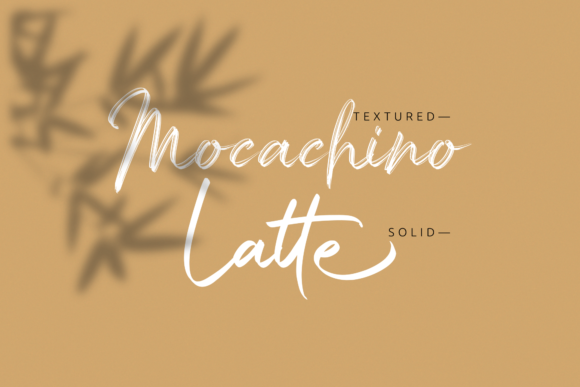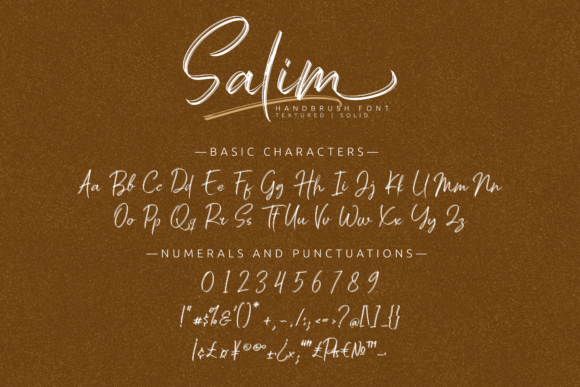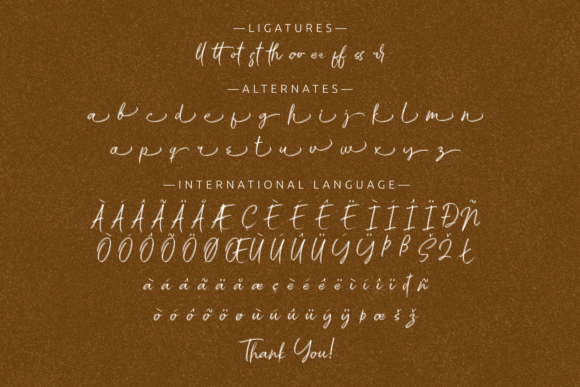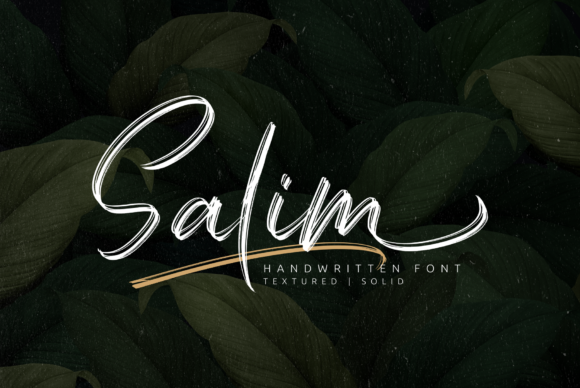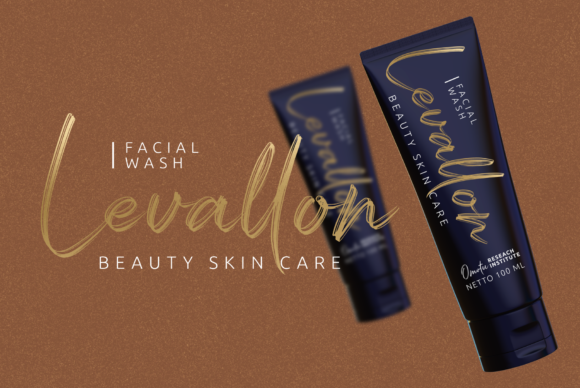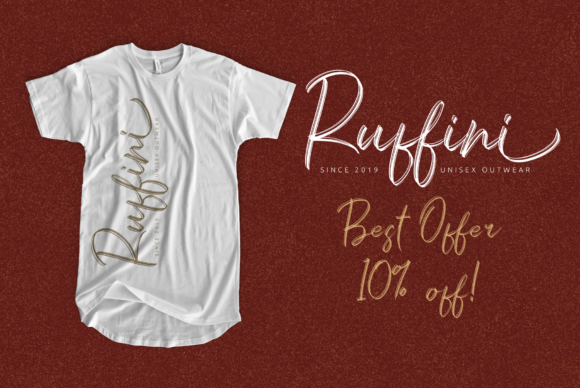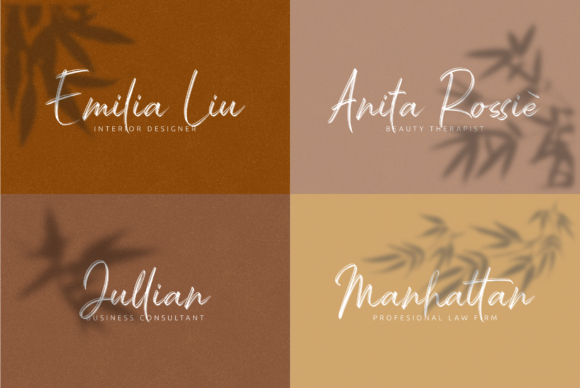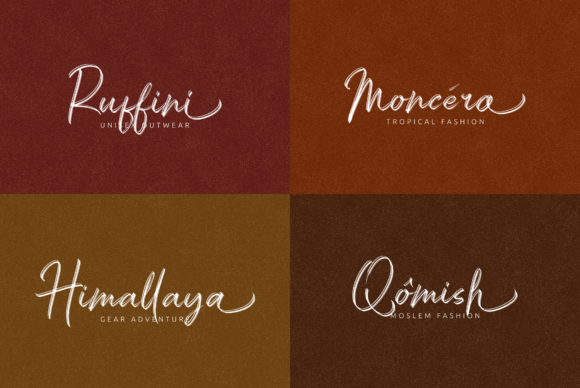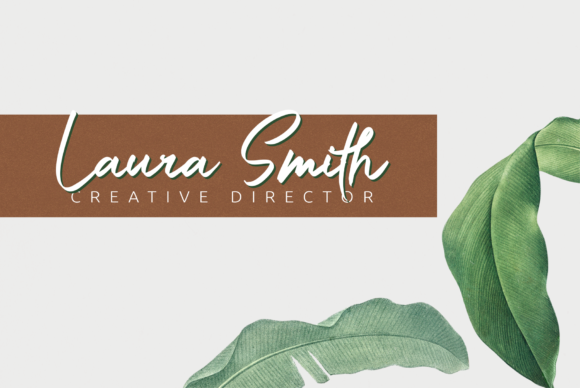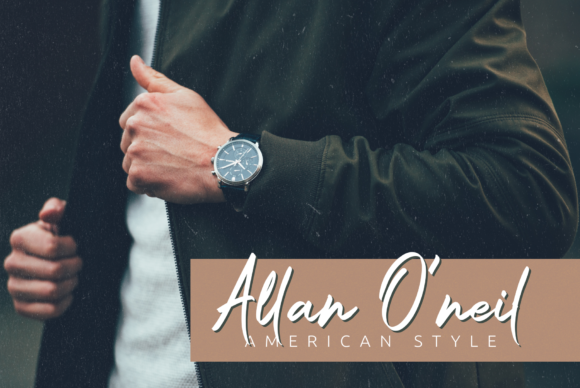
HomeScript FontsSalim Font Script Fonts Salim Font FacebookXPinterestWhatsApp Salim Font Poster 2 Salim Font Poster 3 Salim Font Poster 4 Salim Font Poster 5 Salim Font Poster 6 Salim Font Poster 7 Salim Font Poster 8 Salim Font Poster 9 Salim Font Poster 10 Salim Font Poster 11 Salim Font Poster 12 Salim Font Poster 13 About Salim Font Salim is a handwritten font that combines elegance and authenticity. Get inspired by its contemporary look. DOWNLOAD ON CREATIVE FABRICAThis font is sold and delivered by Creative Fabrica. Font Canyon may earn a commission if you buy through this link. People also explored Signal Reillytta Sheilabe Font Siyuki Font Galia Makalia Font Cagelon Font Wonderella Font MultiType Lines Narrow Font Knox Migdalia Font WisH Farmhouse Font 351 0 TagsSalim Font Previous articleCatchme FontNext articleGolden Palace Font LEAVE A REPLY Cancel reply Comment: Please enter your comment! Name:* Please enter your name here Email:* You have entered an incorrect email address! Please enter your email address here Website: Save my name, email, and website in this browser for the next time I comment. Personal Use Free Almonte Personal Use Free Read more about this font Screengem Personal Use Free Read more about this font Zero Hour Personal Use Free Read more about this font The Sweet Neo Personal Use Free Read more about this font BLOG Modern Sans-Serif Fonts That Brands Love in 2025 In 2025, modern sans-serif fonts remain a top choice for brands looking to project clarity, professionalism, and... Best Fonts for T-Shirt Design – Top 2025 Picks Where to Buy American Fonts Online in 2024 Free vs Paid Fonts: Why Investing in Premium Fonts Is Worth It